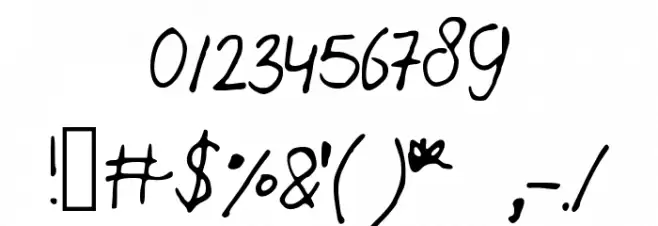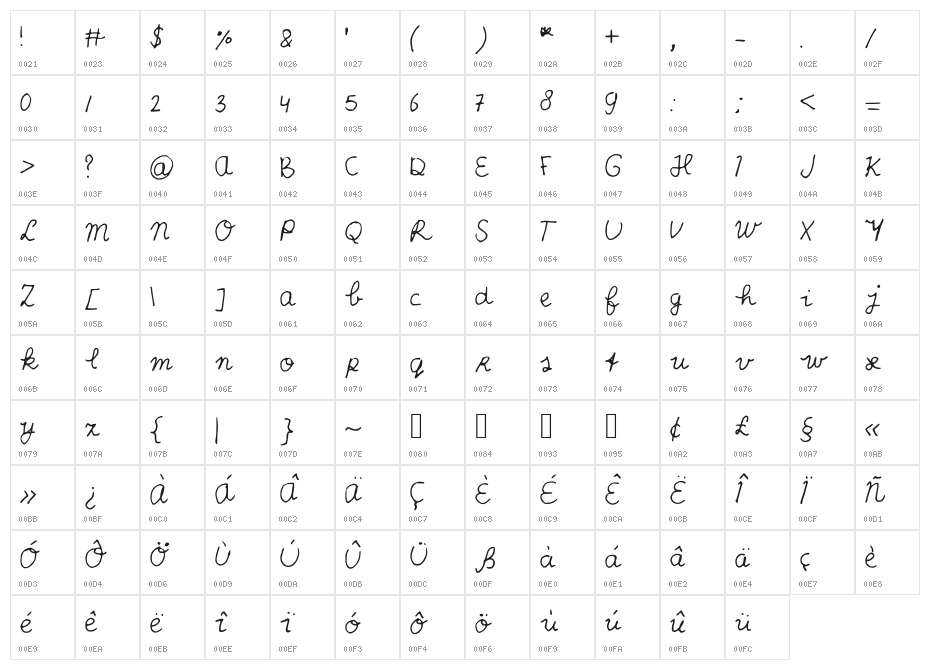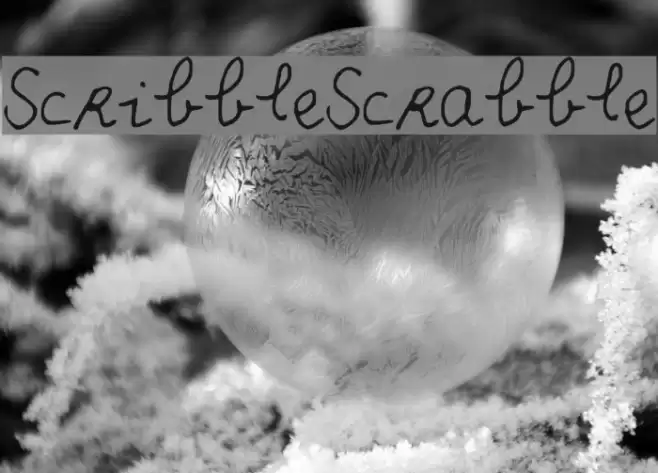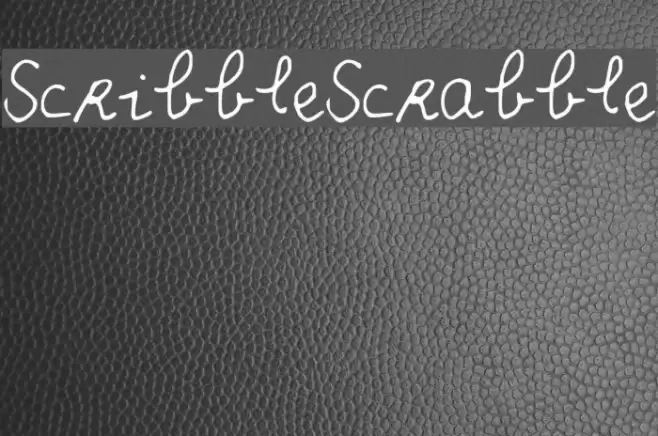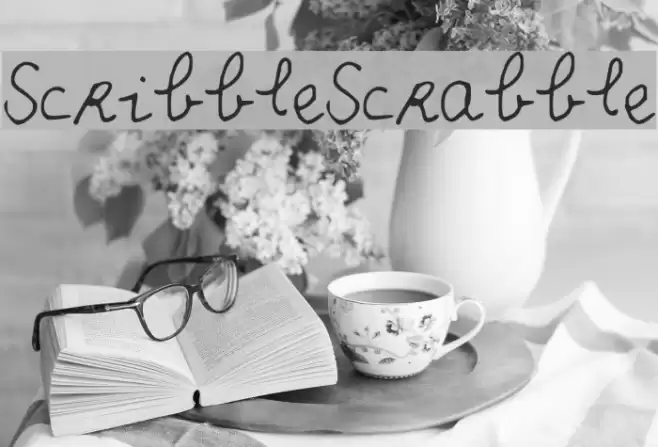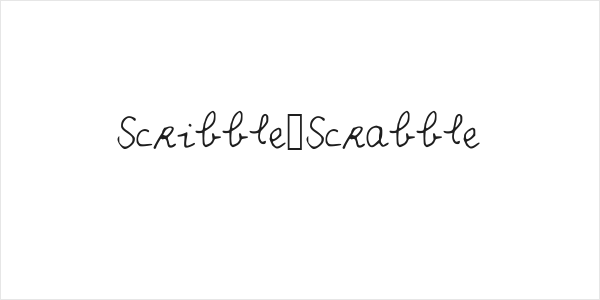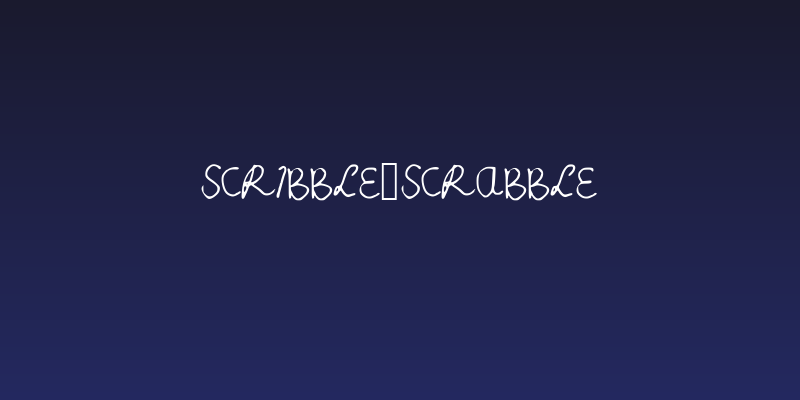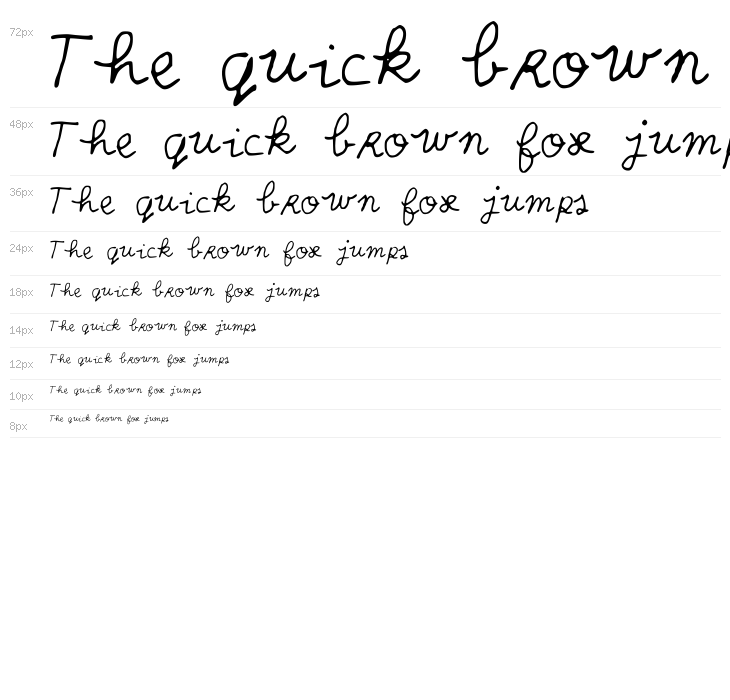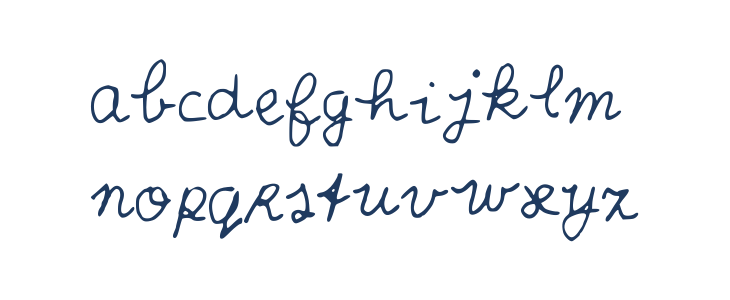
Scribble_Scrabble Font
Scribble_Scrabble Description
This font features a playful and informal handwritten style, reminiscent of casual scribbles or doodles. The letters are fluid and connected, with a consistent stroke width that gives it a uniform appearance. The uppercase and lowercase letters maintain a cohesive look, with slightly exaggerated curves and loops that add to its whimsical charm. Numbers and special characters are crafted with the same playful touch, ensuring a harmonious overall design. This font exudes a sense of spontaneity and creativity, making it ideal for projects that require a personal and approachable feel.